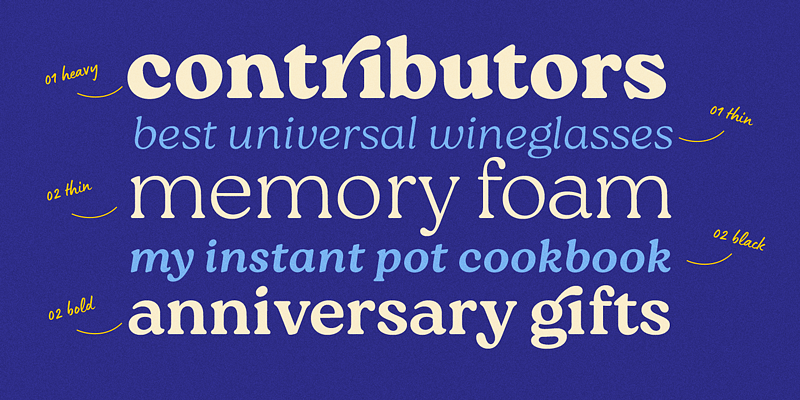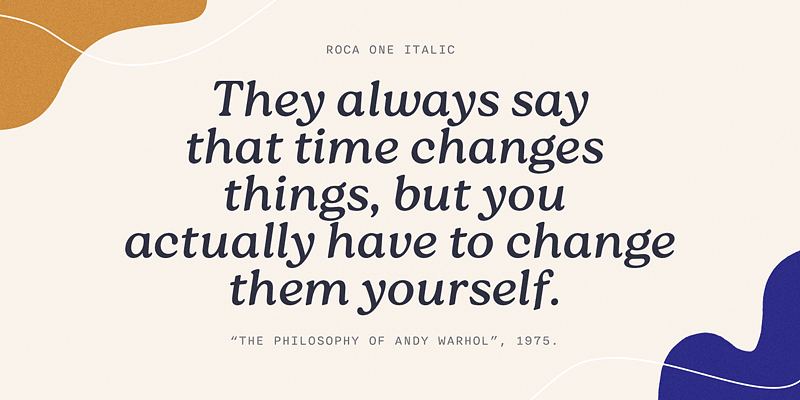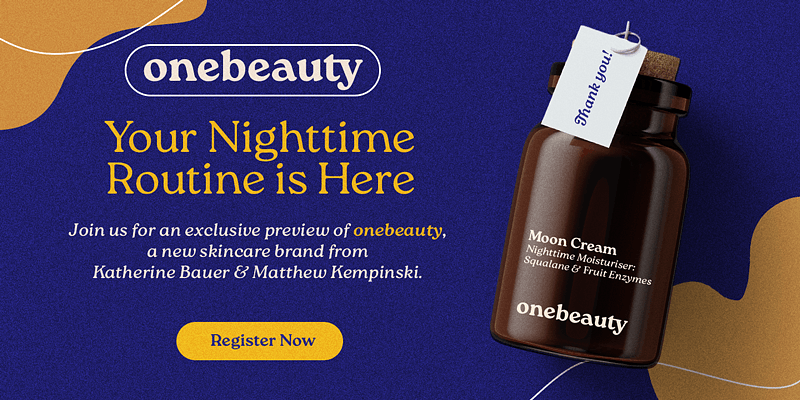
Roca is a soft serif steeped in the spirit of the 60s and 70s. Initially started as an extension to Praline MCL, it transformed into a new font family influenced by the same fonts — Windsor and Cooper Black — the hits of the 60s and 70s, with a hint of Bookman. Roca is available in 6 weights that can be mixed and matched, including 2 stylistic sets, with alternates and true italics. Language support includes most of Europe and Cyrillic (Russian and Ukrainian).
My Creative Land is home to the gorgeously handcrafted typefaces of Elena Genova. With an unwavering dedication to the art of letterforms, the faces transcend the ordinary and convey emotion, depth, and uniqueness in design. Each font family is carefully handcrafted and often draws direct inspiration from the beauty found in calligraphy and lettering. Discerning designers will know that My Creative Land has fonts ready to infuse a certain je ne sais quoi, amplifying their ideas above the rest.